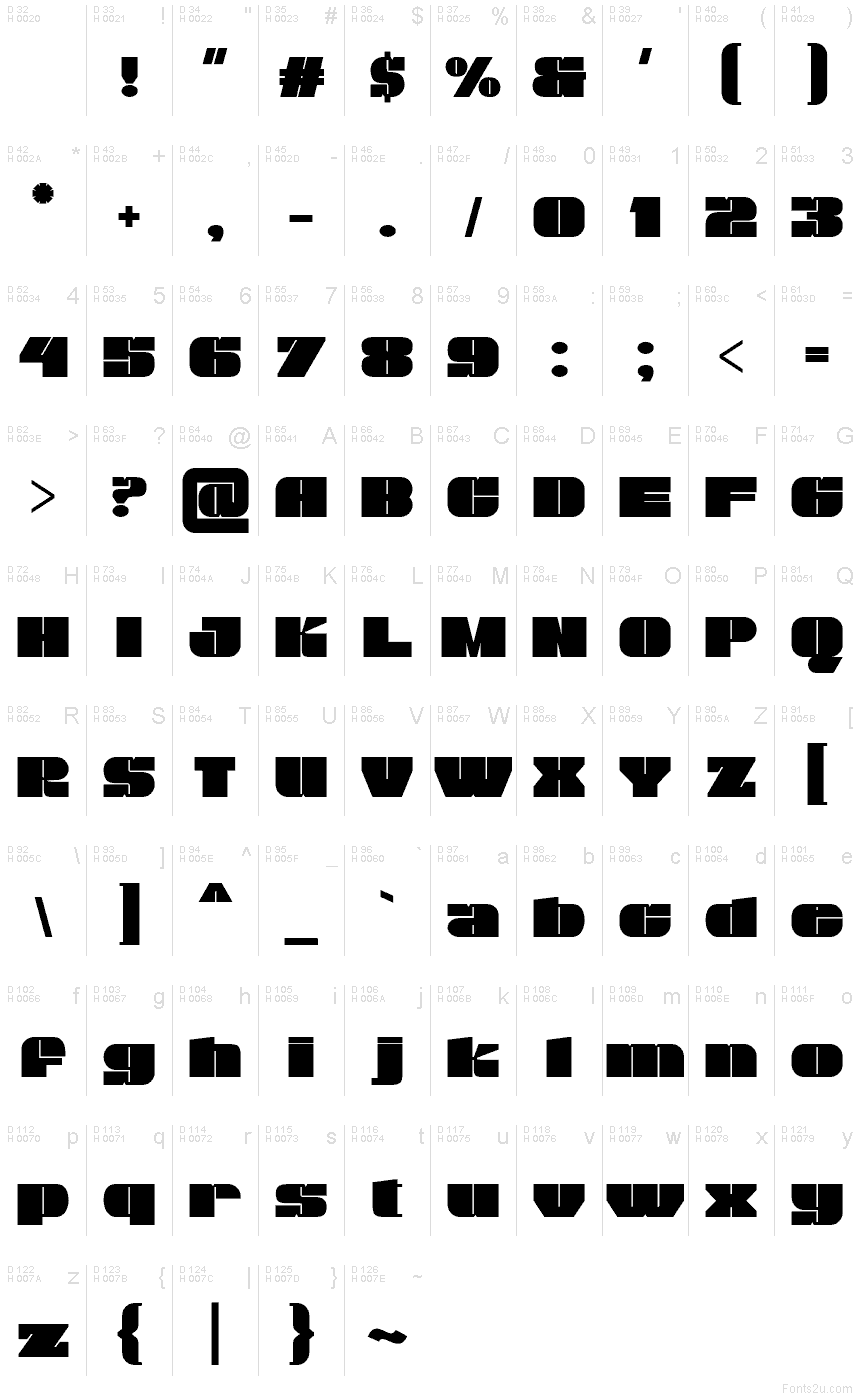
KREAKDISPLAY-Regular
Kreak Display font by Tebaltipis Studio is a bold, expanded display typeface with a retro flair. This font's industrial feel and geometric influence deliver a heavy presence making it suitable for strong headlines or other attention-grabbing tasks. Use its clear legibility to your advantage and experience how amazing this font makes every word appear!
Use Kreak Display in branding, logo design, signage creation, or package design. Establish an online presence like no other with unconventional social media posts and impressive website presentations! Print invitations, pamphlets, and catalogs or apply the exciting characters on T-shirts, mugs, posters, banners/flags and more!